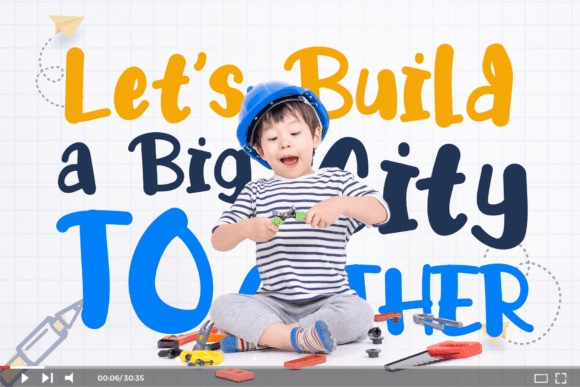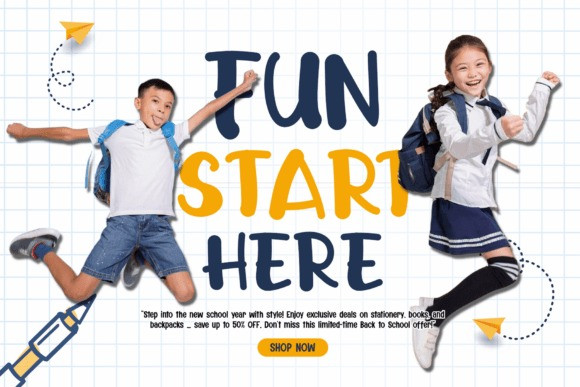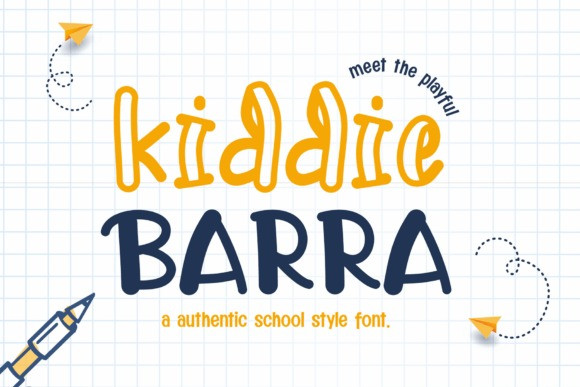
Kiddie Barra Font
Kiddie Barra Font, an engaging, school-inspired font that exudes authenticity. Presented in ‘Regular’ and ‘Hollow’ variations, Kiddie Barra transports you back to the charm of hand-drafted notes and the nostalgia of school days. Ideal for children’s projects, instructional materials, and playful posters, or even for infusing gaming interfaces and original branding with a dash of youthful enthusiasm. Kiddie Barra bursts with the exuberance of childhood creativity and lighthearted energy. Seamlessly adaptable to print and digital mediums—Kiddie Barra injects a dose of joy into any design. To truly harness its playful personality, intermingle its two unique styles to create designs that not only grabs attention but also conjures smiles across every creative endeavour you undertake.